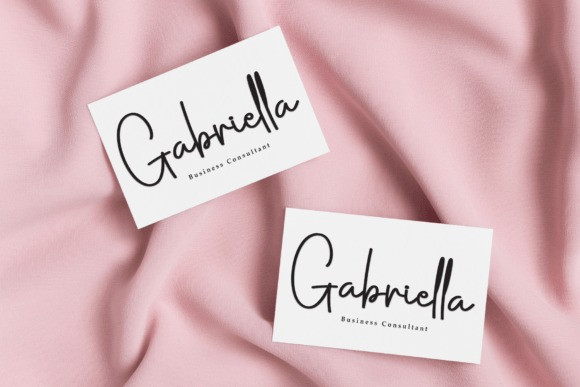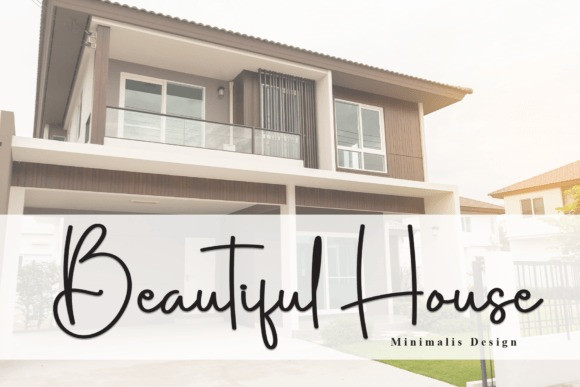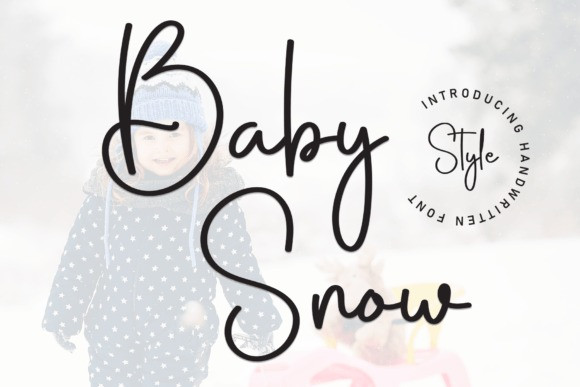
Baby Snow Font
Baby Snow Font is a lovely and timeless handwritten font. It is the best choice for creating eye catching logos, branding and quotes. Every letter has a unique and beautiful touch, which will make your design come alive